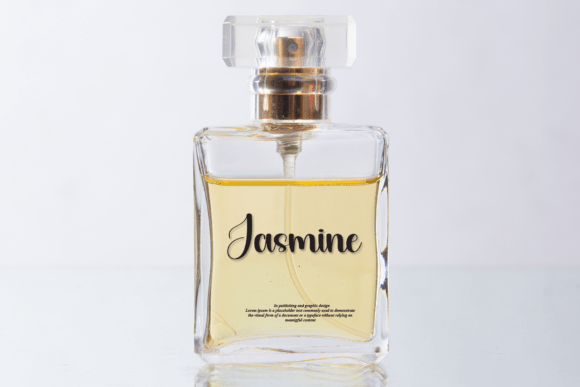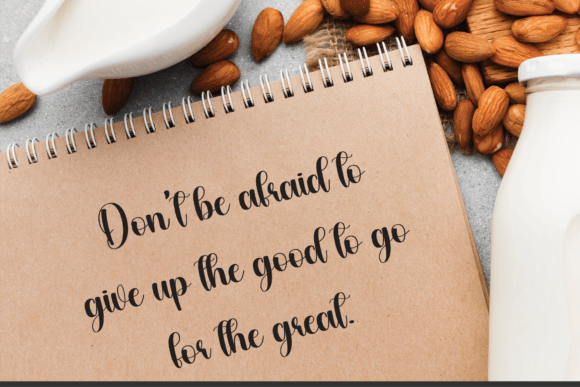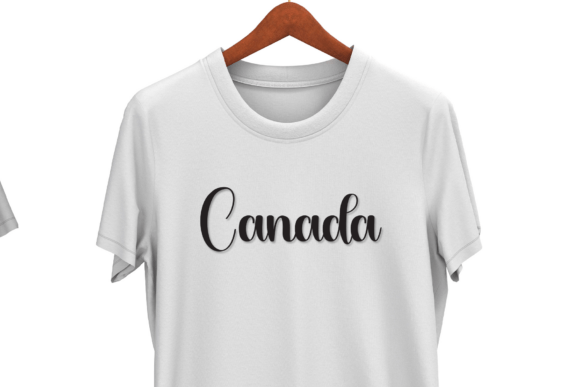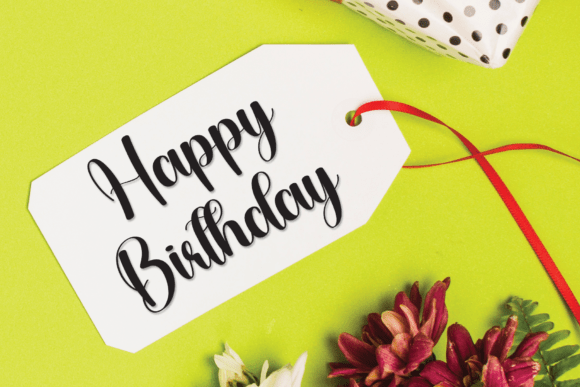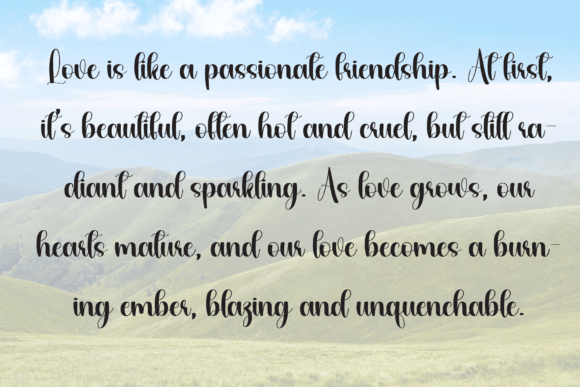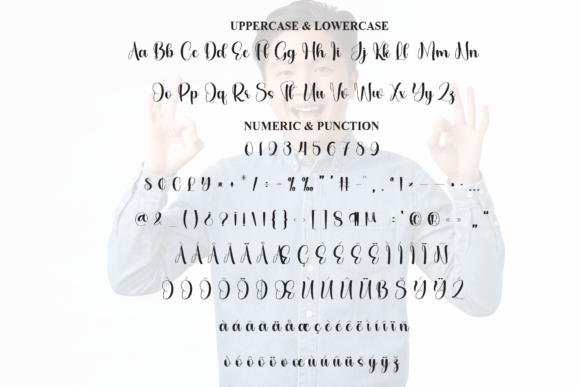
Introducing Goodman Font: The Ultimate Handwritten Script Font for Your Creative Projects
Are you looking for a font that can add a touch of sweetness and cheer to your designs? Look no further than Goodman Font, an enchanting handwritten script font that is sure to bring a delightful touch to any creation. With its endearing character and playful vibe, this font is perfect for designers and crafters who want to infuse their work with a dash of fun and whimsy.
The Perfect Synthesis of Sweetness and Cheer
Goodman Font is a beautifully crafted handwritten script font that strikes the perfect balance between sweetness and cheer. Its elegant and flowing lines are sure to capture the warmth and essence of any occasion, making it perfect for wedding invitations, greeting cards, and other celebratory designs. Whether you’re a designer looking to create stunning visual content or a crafter seeking to add a personal touch to your DIY projects, Goodman Font is the perfect companion.
Bringing Joy and Whimsy to Your Designs
With Goodman Font, you can transform your creative vision into a reality brimming with joy and whimsy. This wonderfully playful typeface is designed to add a touch of magic to any design, making it perfect for projects that require a dash of fun and personality. Imagine using Goodman Font to create:
• Wedding invitations that capture the warmth and romance of the occasion
• Greeting cards that exude inviting charm and personality
• Social media graphics that showcase your brand’s playful side
• DIY projects that require a personal touch
Why Choose Goodman Font?
So, why choose Goodman Font over other handwritten script fonts? Here are just a few reasons why Goodman Font stands out:
• Unique and Enduring Character: Goodman Font has a distinctive and endearing character that sets it apart from other fonts.
• Playful and Versatile: This font is incredibly versatile and can be used for a wide range of design projects, from wedding invitations to social media graphics.
• Elegant and Flowing Lines: Goodman Font features elegant and flowing lines that give it a sophisticated and refined look.
• Easy to Read: Despite its playful nature, Goodman Font is incredibly easy to read, making it perfect for body text and other applications where legibility is key.
Tips for Using Goodman Font
To get the most out of Goodman Font, here are a few tips to keep in mind:
• Use it for Headings and Titles: Goodman Font is perfect for headings and titles, where its playful and elegant lines can really shine.
• Pair it with a Sans-Serif Font: For body text and other applications where legibility is key, pair Goodman Font with a clean and simple sans-serif font.
• Experiment with Colors and Textures: Goodman Font looks amazing in a variety of colors and textures, so don’t be afraid to experiment and find the perfect combination for your design.
In conclusion, Goodman Font is a beautifully crafted handwritten script font that is sure to bring a delightful touch to any design project. With its unique and enduring character, playful and versatile nature, and elegant and flowing lines, this font is perfect for designers and crafters who want to infuse their work with a dash of fun and whimsy. So why wait? Download Goodman Font today and start transforming your creative vision into a reality brimming with joy and whimsy!